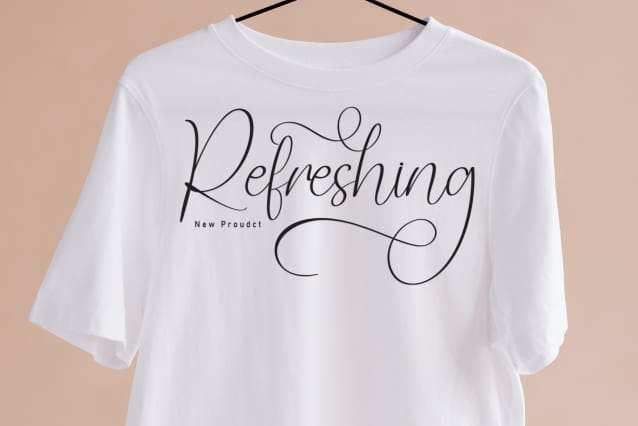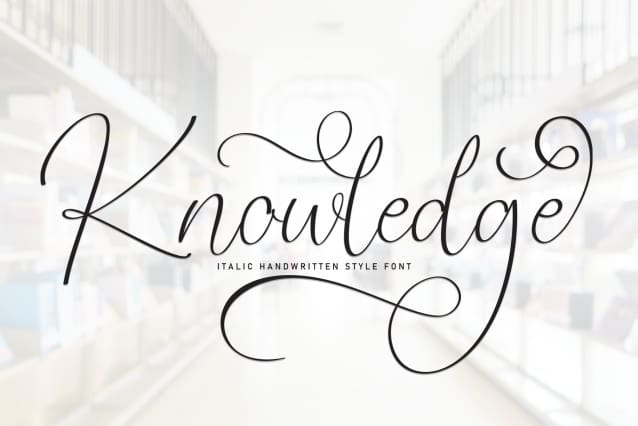
Knowledge Script Font
Knowledge Script Font, special creative products for you, our products will give you an extraordinary experience.
the latest style letters are perfect for wall displays, wedding invitations, social media post logos,
advertisements, product packaging, product designs, labels, photography, watermarks, invitations, stationery, and any project that requires taste handwriting.